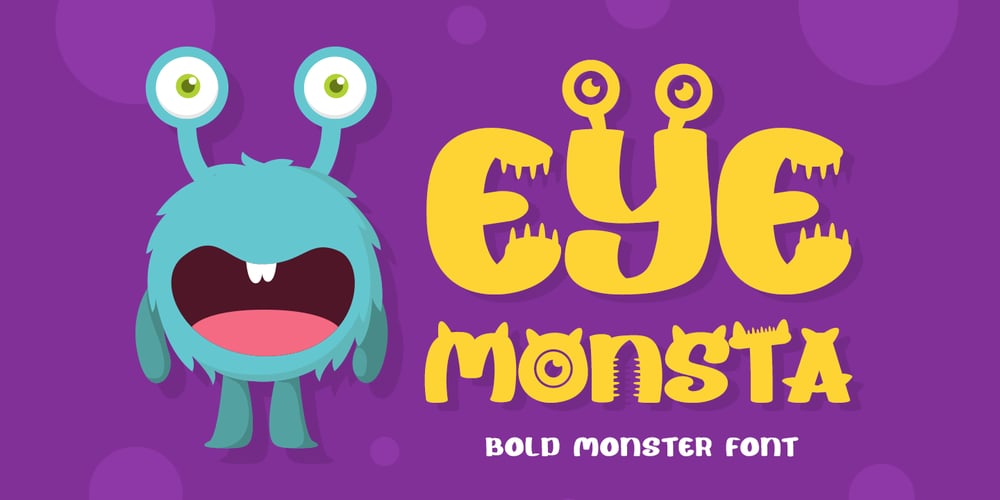
Eye Monsta Font Family was designed by Bayu Suwirya and published by Illushvara. Eye Monsta contains 1 styles and family package options. Eye Monsta is a bold and fun display font, carefully handcrafted to become a true favorite. Its casual charm makes it appear wonderfully down-to-earth, readable and, ultimately, incredibly versatile. This font will look outstanding in any context, whether it’s being used on busy backgrounds or as a standalone headline!